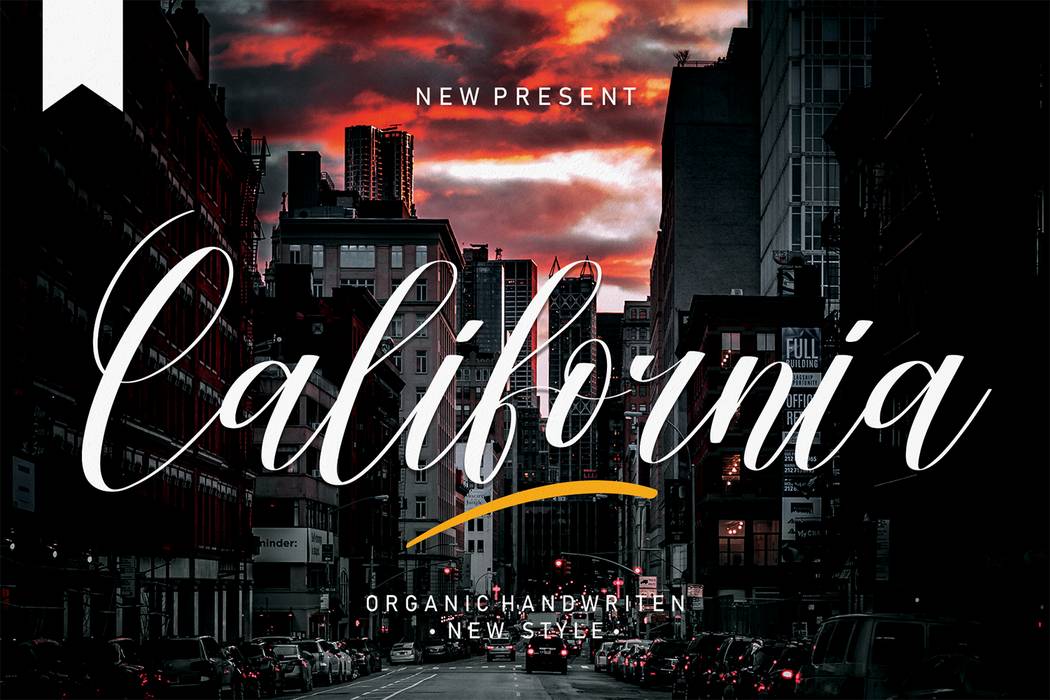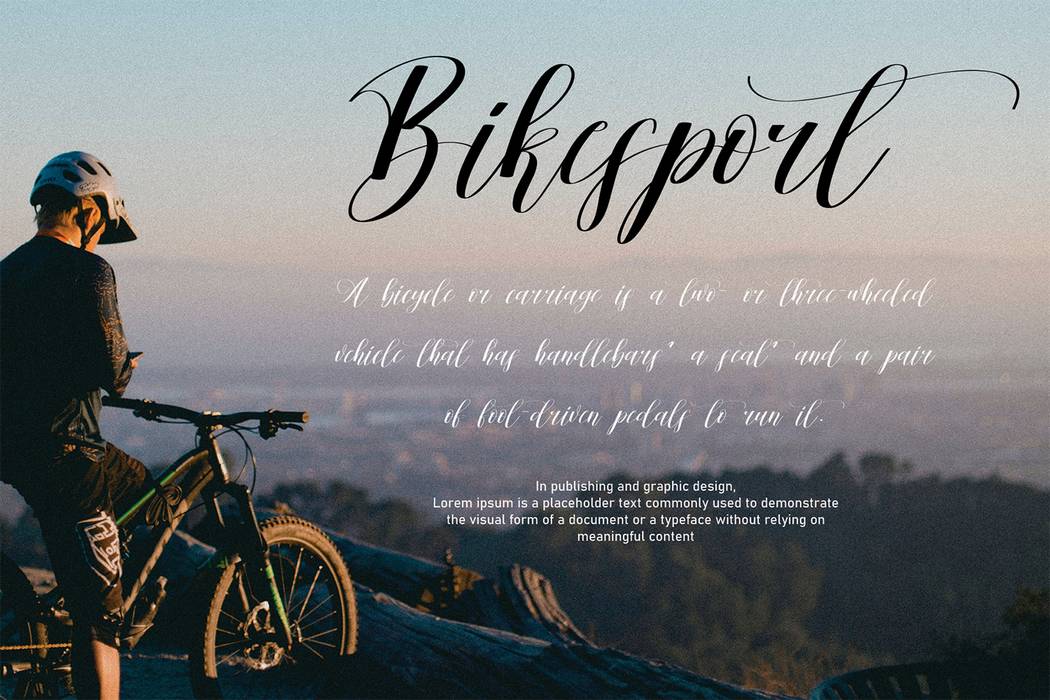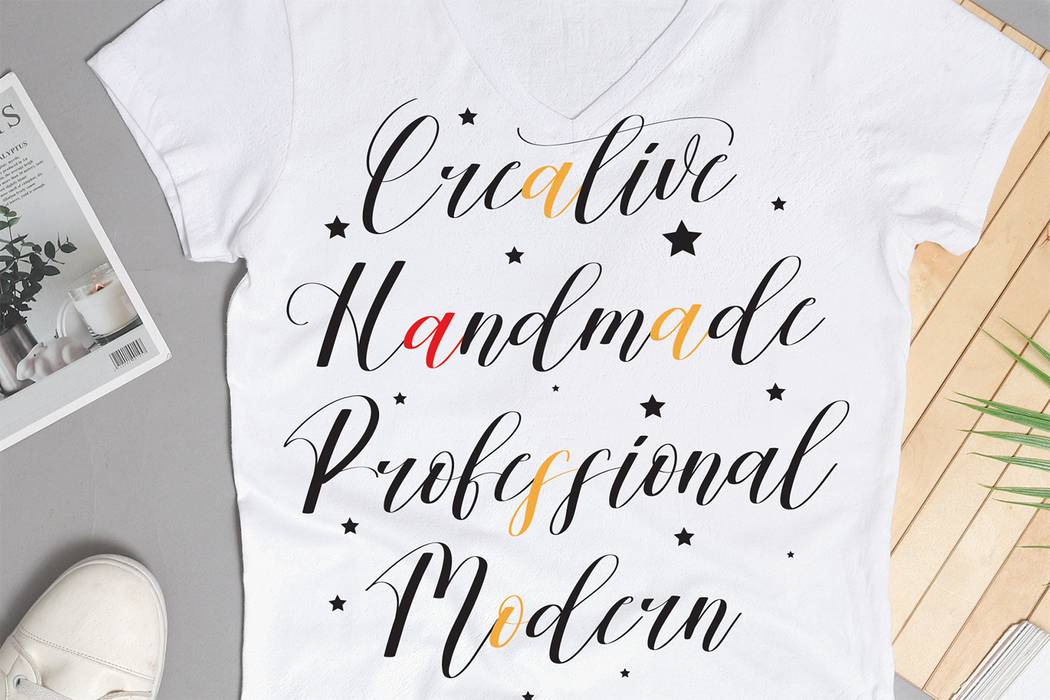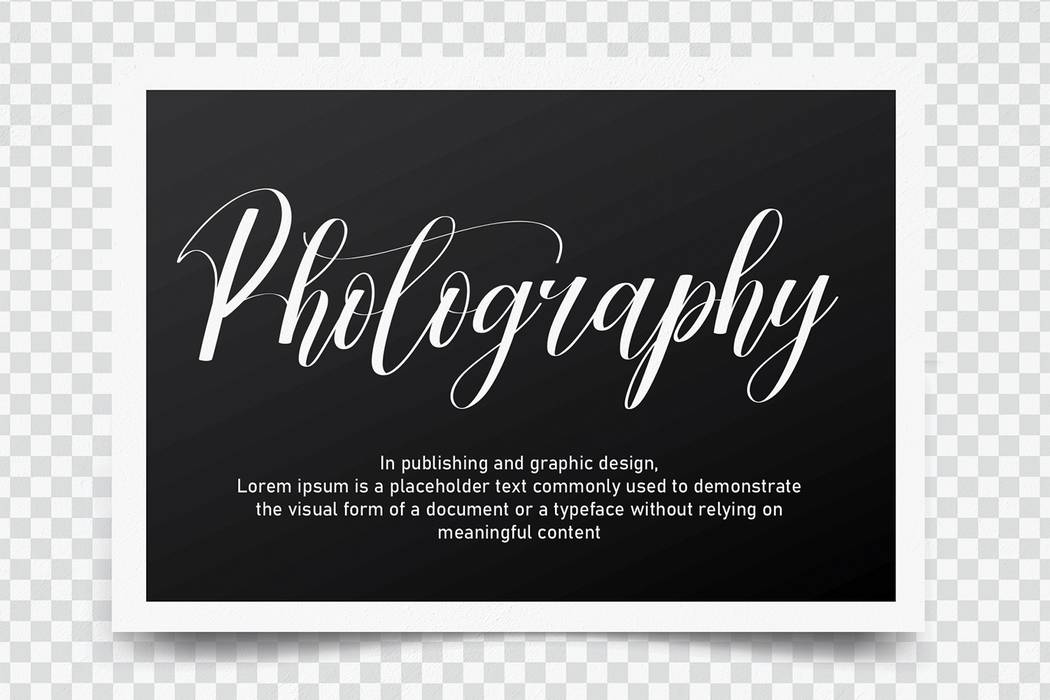
California Font is an elegant, delicate script typeface with graceful, flowing strokes and high contrast between thick and thin lines. Its stylish, calligraphic design with ornate swashes and a refined, handwritten feel makes it perfect for luxury branding, wedding invitations, and sophisticated editorial projects where a touch of classic beauty and refinement is desired.
California Font
About California Font